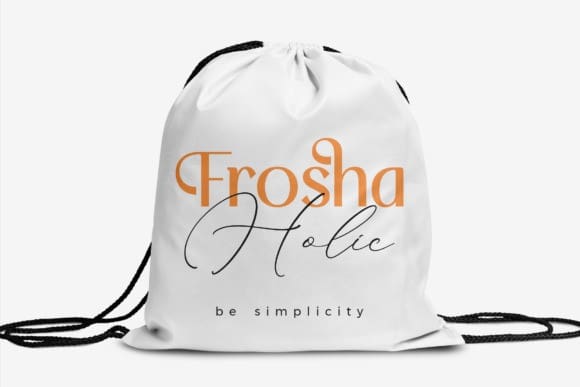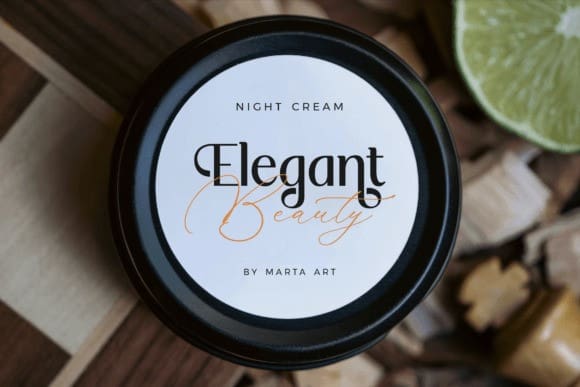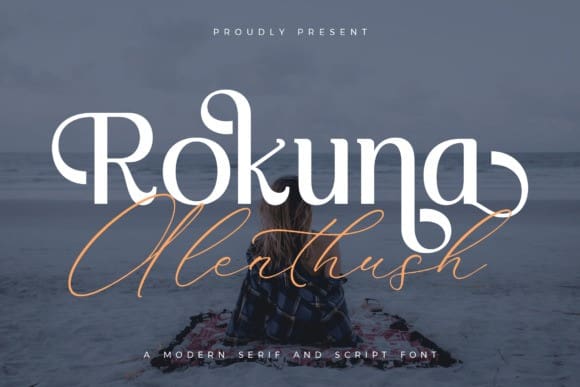
Rokuna Alenthush Font Duo
Rokuna Alenthush Font Duo, is a modern and cool font duo (serif and script). Masterfully designed to become a true favorite, this font has the potential to bring each of your creative ideas to the highest level!